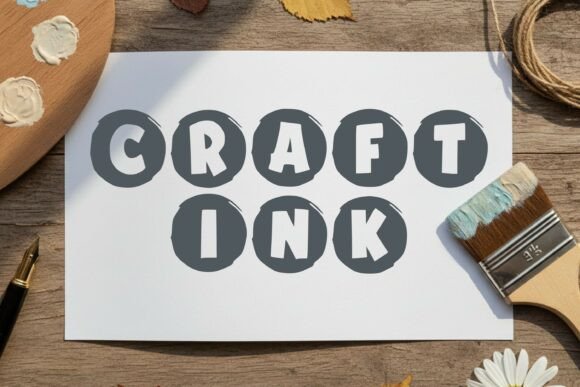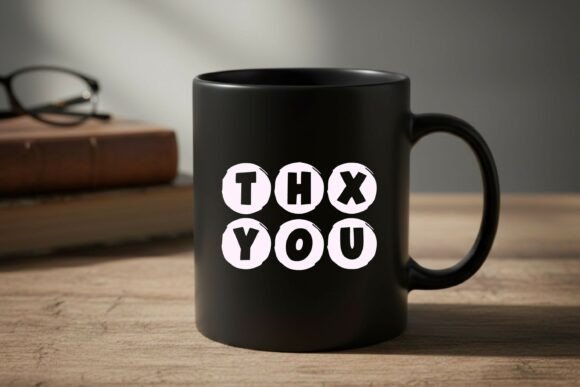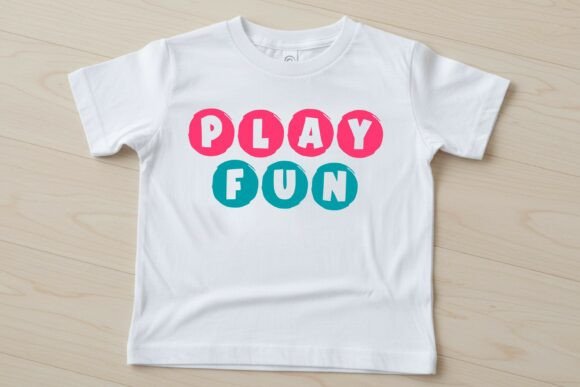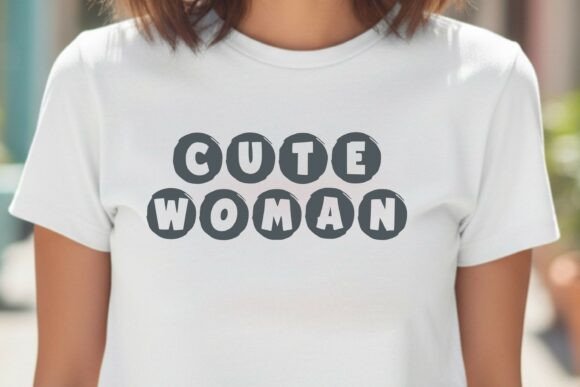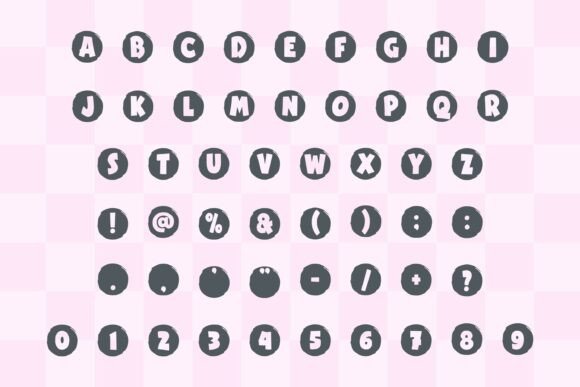
The Perfect Blend of Fun and Function: Introducing the Best Round Font
Do you remember that moment when you stumbled upon the perfect font for your project, and suddenly everything fell into place? The Best Round Font is that moment for many designers. This fun and eye-catching decorative display font features bold uppercase characters set inside rounded shapes, creating a playful and modern style that’s perfect for creative projects that need a cheerful and friendly vibe.
With the Best Round Font, you can add a strong visual impact to your branding and standout designs. Its unique combination of thick lettering and circular backgrounds makes it a valuable asset for designers looking to create memorable and engaging visuals. Whether you’re working on a logo, poster, or social media campaign, the Best Round Font is sure to bring a smile to your audience’s face.
Key Features of “Best Round Font”
- Font Family: Best Round Font is a custom-designed sans-serif font with rounded edges, perfect for creating a friendly and approachable atmosphere.
- Unique Characteristics: The font features rounded edges, smooth curves, and a clean, minimalist design, making it ideal for use in logos, branding, and digital products.
Designer Review: Best Round Font
Overall, I’d say the Best Round Font is a solid choice for any project that requires a friendly and approachable feel. Here’s what works well: ✨ Easy to read, even at smaller font sizes ✨ Consistent line widths and shapes, making it perfect for signage and wayfinding systems ✨ A wide range of weights and styles to choose from, ensuring versatility in various design applications
However, there are some limitations to consider: ⚠️ The font may feel a bit too rounded and soft for projects that require a more modern or edgy look ⚠️ The character set could be expanded to include more special characters and symbols, making it more suitable for international projects ⚠️ The font may not be as effective in digital applications, where it can appear blurry or pixelated
Conclusion
Despite its limitations, I think the Best Round Font is a great choice for projects that require a warm and inviting feel. With its ease of use, versatility, and friendly appearance, it’s sure to please a wide range of designers and clients. Just be aware of its limitations and consider them when making your design decisions.
- Best for signage, wayfinding systems, and other projects that require a friendly and approachable feel
- May not be suitable for modern or edgy designs
- Not ideal for digital applications where sharp lines and clear typography are crucial
Use the Best Round Font to create eye-catching headings and titles. Combine it with bold colors and graphics for a visually appealing design. Experiment with different font sizes and styles to create a unique look. Use the font in conjunction with other design elements, such as shapes and icons, to create a cohesive design.
The Best Round Font is ideal for use in branding, logos, and marketing materials. It’s also great for creating playful and whimsical designs, such as children’s books, party invitations, and social media graphics.